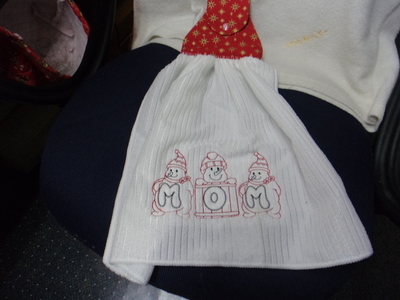
Aren't these just the cutest snowman and Font you ever did see??****Thanks for LQQKING!!!Hugs Carolyn
Yes, Carolyn, they are the cutest! Love the towel. Hugs, Donna
Very cute...is it an entire alphabet or just "Mom".....
Such a wonderful font. I love the "mom" inside the bellies. Love watching you do your work.....want to come and help me get done?!
So cute and very appropriate for your Winters! Love Chris
Cute towel. Happy Stitching :-)
I bet I know who is going to receive this towel! They truly are cute and give me a happy feeling.
Another job well done, as usual.
They are cute Stitched out so nicely.
These towels you'd made look lovely& these snowmen are delightful too.Wondered where you'd found them if you don't mind telling? Thanks for sharing your project& by the way they gave me a smile. :~D